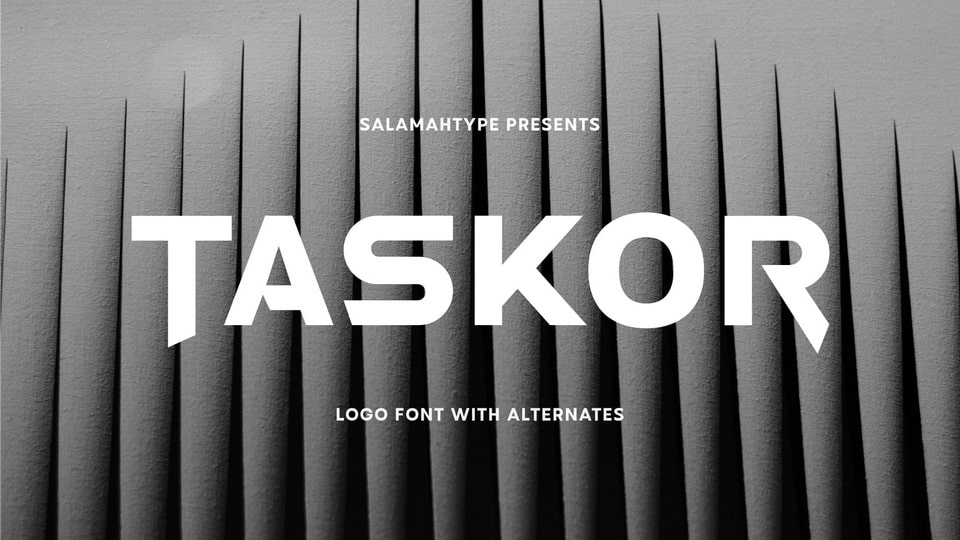
Download Taskor font, a unique all caps typeface designed with a modern geometric touch, making it perfect for logos, branding, and futuristic design themes.